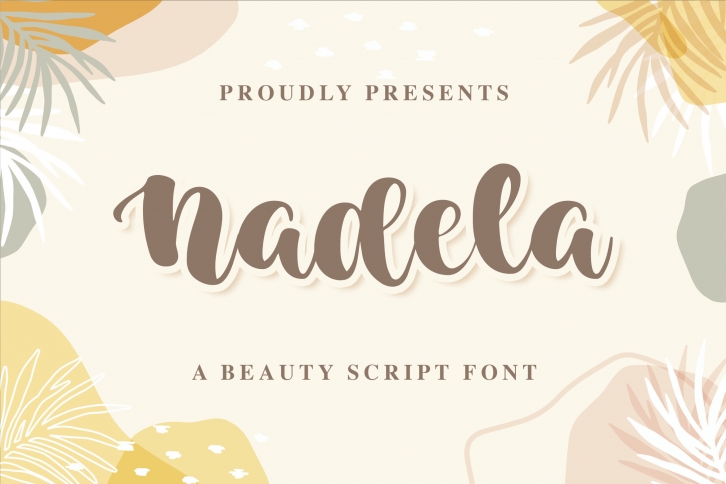
Nadela is a trendy and casual handwritten font. Its distinct and well balanced letters make this font a masterpiece. Fall in love with its incredibly versatile style and use it to create spectacular designs!